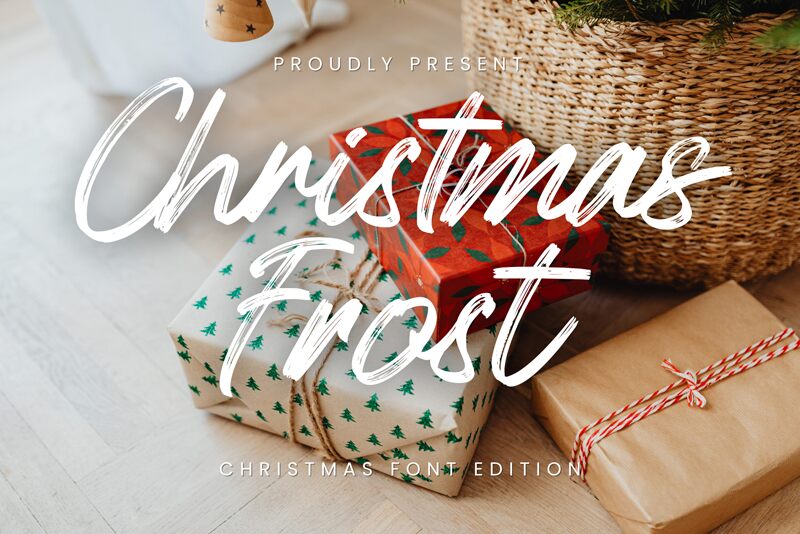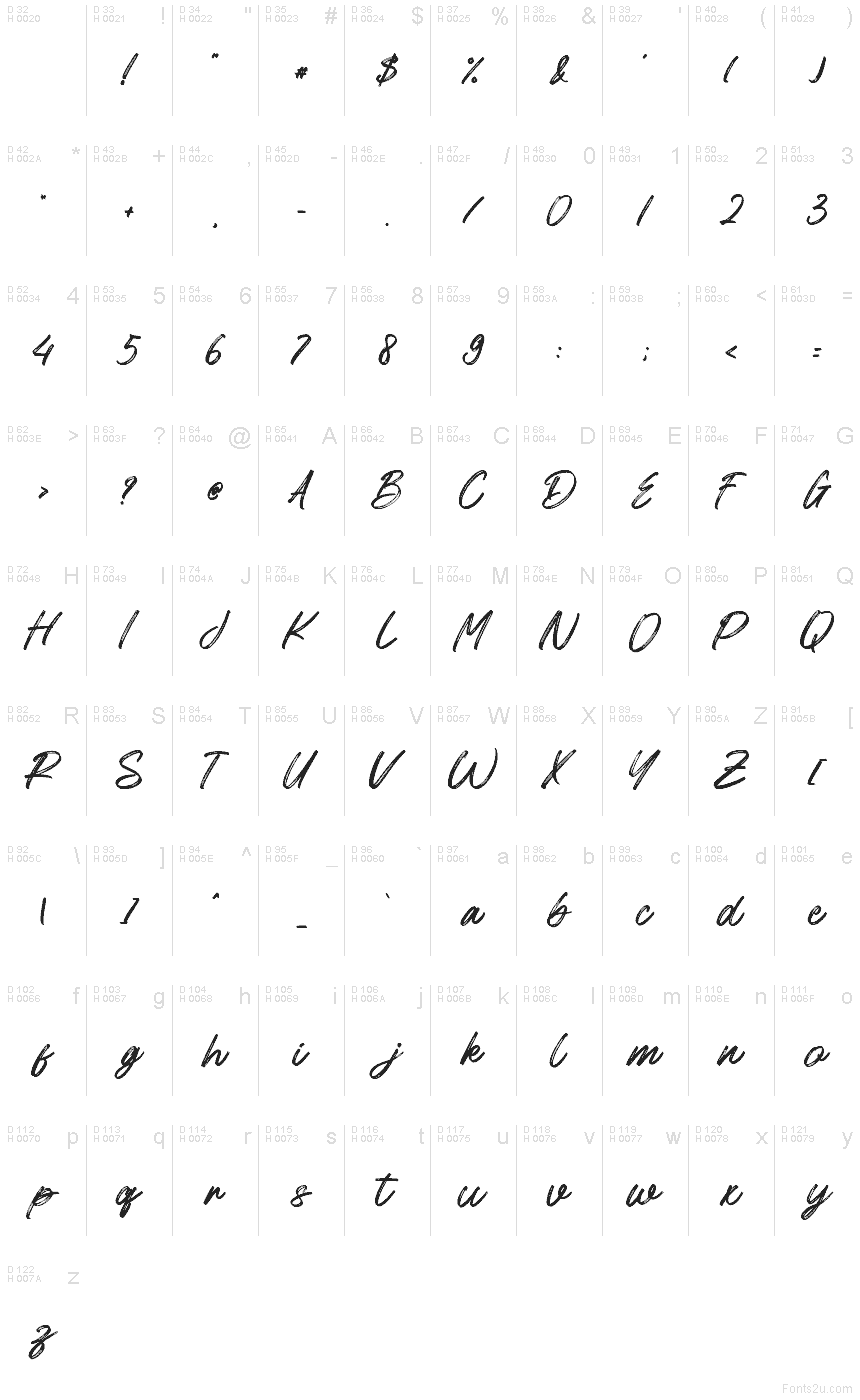
Christmas Frost
Christmas Frost font by Sarif Letter is a free brush script typeface that feels like it was scratched into frosty glass with a quick, confident hand. The letters are tall, slightly slanted, and full of energetic strokes, with subtle texture that mimics dry ink on rough paper. It has just enough whimsy to feel festive, without tipping into cartoonish, so your holiday designs stay stylish and grown-up.
Using Christmas Frost, you can script glowing Christmas cards, winter event posters, seasonal branding, product packaging, gift tags, and cozy social media graphics that all share the same handwritten sparkle. The flowing connections give layouts a natural rhythm, especially when words are allowed to breathe with generous spacing. This free font works beautifully as a headline paired with a clean sans serif at smaller sizes for supporting text.